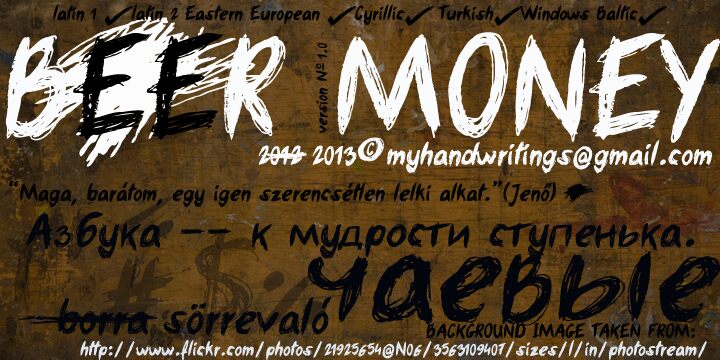
Beer Money by Roland Huse is a free trash-style script font with the raw look of hurried painted lettering. Its tall, uneven letters swing between broad strokes and thin scratches, with ragged edges throughout. The changing angles and irregular joins keep the line lively rather than polished.
It is especially convincing for gig posters, album artwork, and merchandise tied to punk, garage rock, or skate culture. On beverage packaging or event graphics, the scraped marks can echo splattered paint, photocopied textures, and rough illustrations.
BEER MONEY supports the following character sets:
- Latin-1
- Latin-2 (Eastern European)
- Cyrillic
- Turkish
- Windows Baltic
The font includes correction signs:
- The < symbol crosses out the preceding word.
- Pipe
- Typing “nummer” produces the “No.” sign.